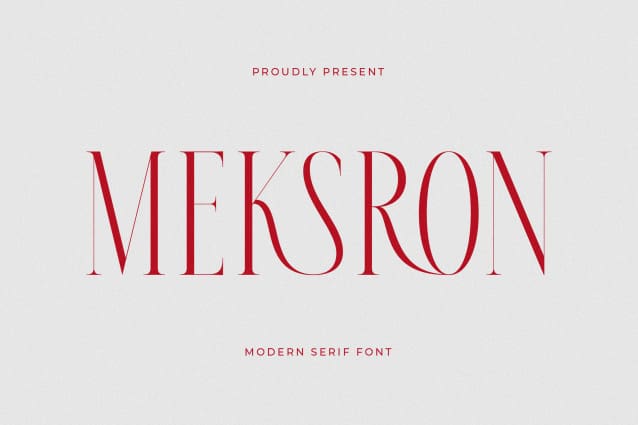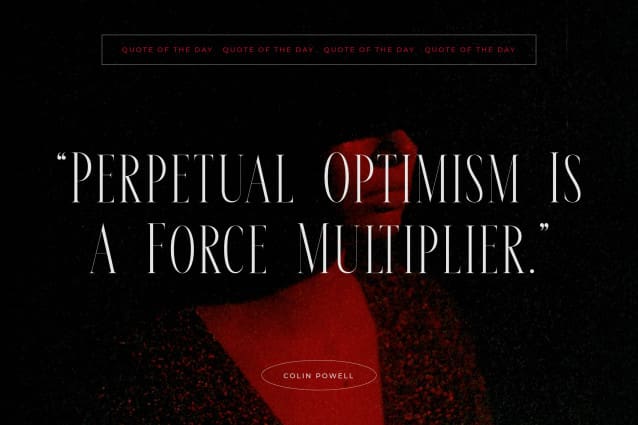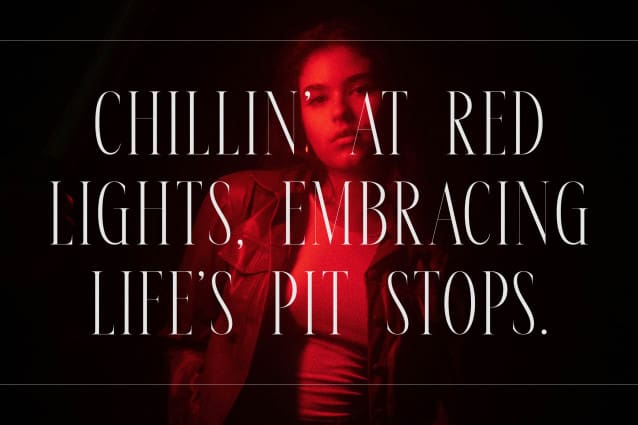
Meksron Serif Font
Meksron Serif Font – Modern Serif Font , from Letterena, is a Luxury Serif font, suitable for any projects such as: logos, branding projects, homeware designs, product packaging, mugs, quotes, posters, shopping bags, t-shirts, book covers, name card, invitation cards, greeting cards, label, photography, watermark, special events, and all your other luxury and beautiful projects that need a Luxury serif taste.